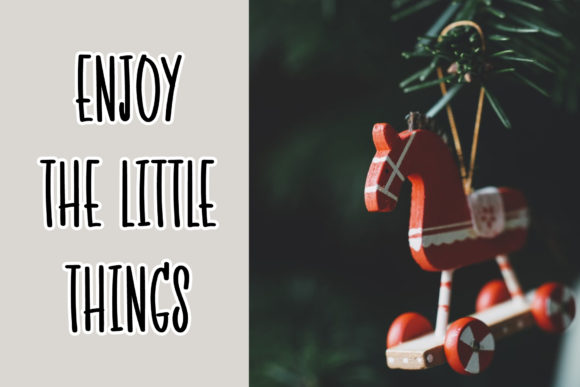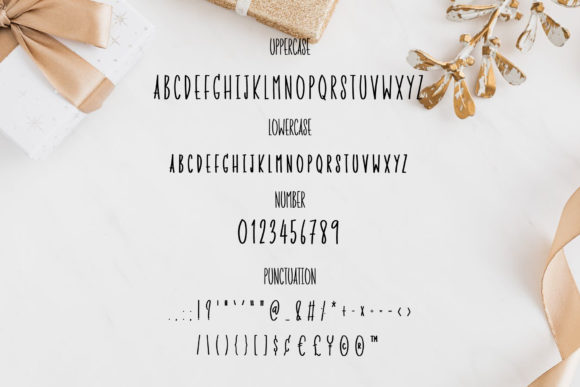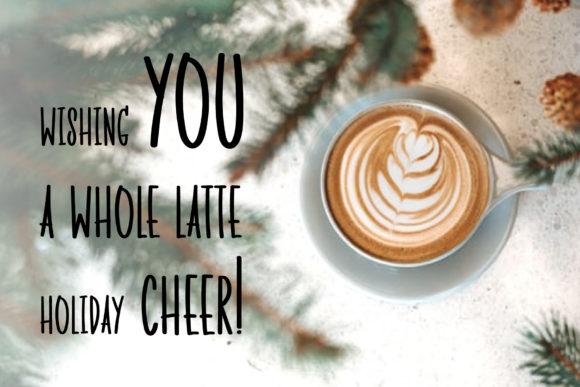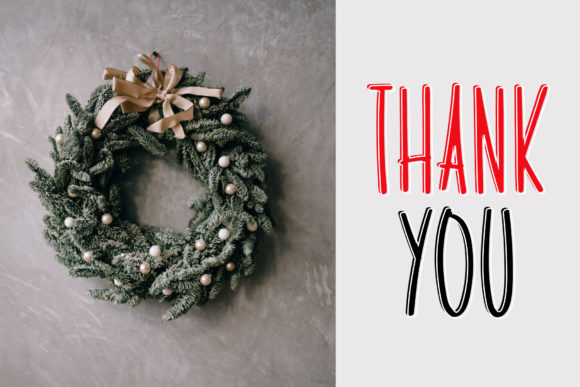
Introducing Extra Present Font: Elevate Your Designs with a Simple yet Elegant Touch
In the world of typography, fonts play a crucial role in conveying the message and aesthetic of a design. For designers, crafters, and anyone looking to add a personal touch to their creations, having the right font is essential. This is where the Extra Present Font comes into play – a simple, thin, and neat lettered handwritten font that is about to become your new go-to asset.
The Simplicity and Elegance of Extra Present Font
Extra Present Font stands out for its understated elegance and simplicity. Its thin and neat lettering gives it a clean and crisp appearance that can effortlessly elevate any design. Whether you’re working on a project for a client or creating something for personal use, this font’s versatility ensures it will fit right in. From invitations and greeting cards to blog posts and social media graphics, Extra Present Font brings a touch of sophistication that is hard to achieve with more ornate fonts.
Versatility Across Topics
One of the most significant advantages of the Extra Present Font is its adaptability. No matter the topic or theme of your project, this font can be seamlessly integrated. Its neutral and friendly appearance makes it suitable for a wide range of applications, including:
- Wedding and Event Invitations: Add a touch of class and intimacy to your wedding or event invitations.
- Blogging and Content Creation: Elevate your blog posts or articles with a professional yet approachable font.
- Social Media Graphics: Stand out on social media with clean and readable graphics.
- Crafting and DIY Projects: Perfect for crafters, this font can be used in titles, headings, and text for handmade products or tutorials.
Why Extra Present Font is a Must-Have
There are several reasons why Extra Present Font should find its way into your font library:
- Ease of Reading: Its clear and thin lettering ensures that your text is easy to read, even at smaller sizes.
- Professional Look: Achieve a professional and polished look without sacrificing personality.
- Time-Saving: With a font that’s versatile and easy to use, you save time that can be better spent on other aspects of your design.
- Emotional Connection: The friendly and approachable feel of this font helps create an emotional connection with your audience.
How to Make the Most of Extra Present Font
To truly leverage the potential of Extra Present Font, consider the following tips:
- Pair it with Other Fonts: Combine it with more ornate or bold fonts for contrast and visual interest.
- Play with Sizes: Use different sizes to create hierarchy and emphasis in your designs.
- Experiment with Colors: While the font’s simplicity shines in black and white, don’t be afraid to experiment with colors that match your brand or theme.